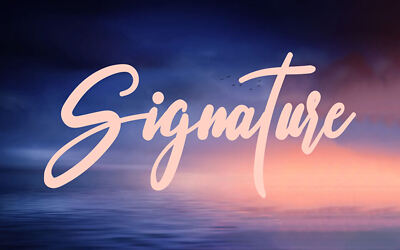
Feb 14, 2025Script & HandwrittenThe Queenthine Script The Queenthine is a beautiful signature typeface. It has an elegant style which is perfect for every design which want to emulate a signature. Font DetailsDesigned by: Silverdav StudioWebsiteLicense: Free for personal use Download The Queenthine ScriptFile size: 12.13 KBCreated: February 16, 2025Updated: February 16, 2025 Download Explore similar fonts Elfariany Duo Font Anestha Script Font Tritopani Font Aesthetic Shine Font Maruka Castelio Font Silky Crystal Font # Cursive# Elegant# Feminine# Signature# Wedding More fonts by Silverdav StudioMarlina & Melvin FontBellandha ScriptHey Bro! FontBanana Chips FontFragille FontCheese Orange FontBrilliant Starlight ScriptDavid & Sovhie Script × Analyzing and categorizing font glyphs... Please wait.